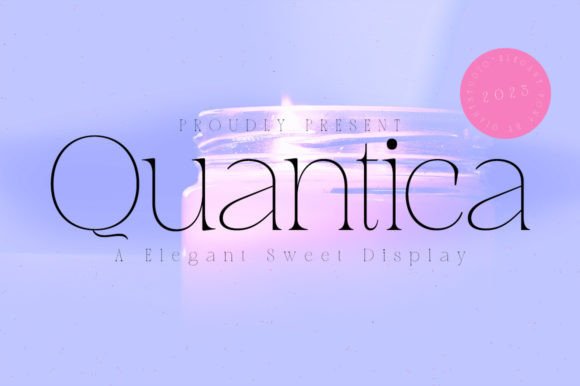
Journey into the realm of elegance and sophistication with Quantica, a captivating serif display font that exudes a timeless charm. This masterpiece from gianstudio12 is an exquisite choice for those seeking to create designs that radiate a sense of luxury and femininity.
Crafted with the utmost attention to detail, Quantica's graceful curves and delicate strokes evoke a sense of sophistication that is simply irresistible. Its unique letterforms dance across the page, creating a visual symphony that captivates the eye, inviting you to immerse yourself in its allure.
With Quantica, the possibilities for creative expression are boundless. Let your imagination soar as you design wedding invitations that exude romance, branding materials that ooze elegance, or social media posts that command attention. This versatile font is the perfect companion for any project that demands a touch of class and refinement.
Step into the world of Quantica and unlock the door to design brilliance. Its timeless beauty will elevate your projects to new heights, leaving a lasting impression on all who encounter it. Embrace the magic of Quantica and let your creativity take center stage.
Here are just a few reasons why Quantica is the perfect choice for your next design project:
* Its sophisticated serif design adds a touch of elegance and luxury to any project.
* The graceful curves and delicate strokes create a visually captivating aesthetic.
* Its versatility makes it suitable for a wide range of projects, from wedding invitations to branding materials.
* The font's unique charm and character will help your designs stand out from the crowd.
Don't settle for ordinary fonts. Embrace the extraordinary with Quantica and embark on a creative journey that will redefine your design horizons. Experience the magic of Quantica today!